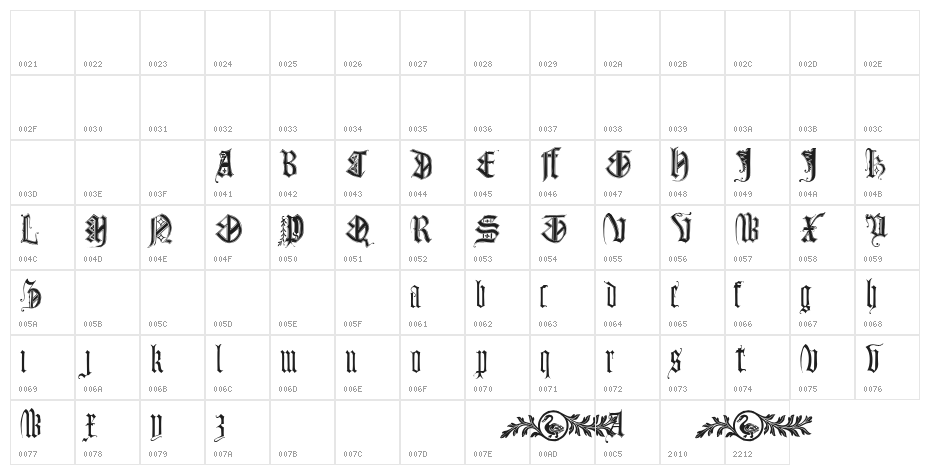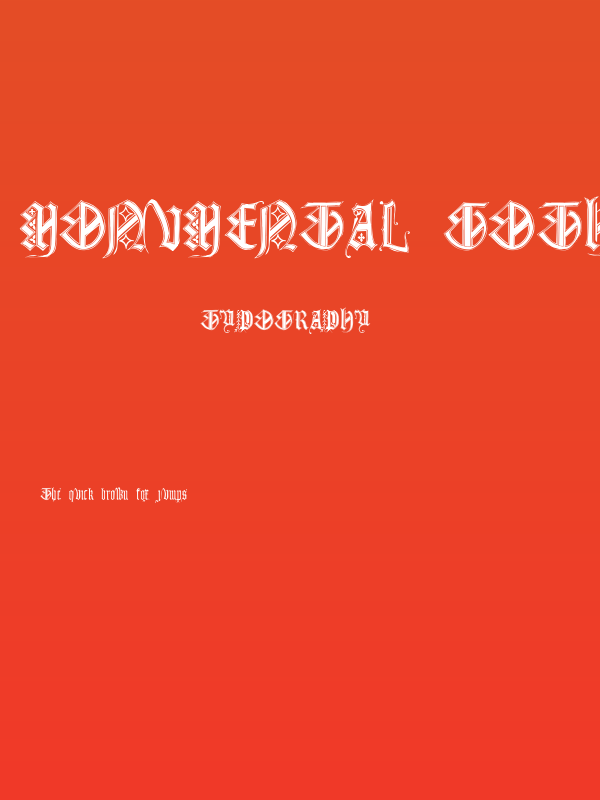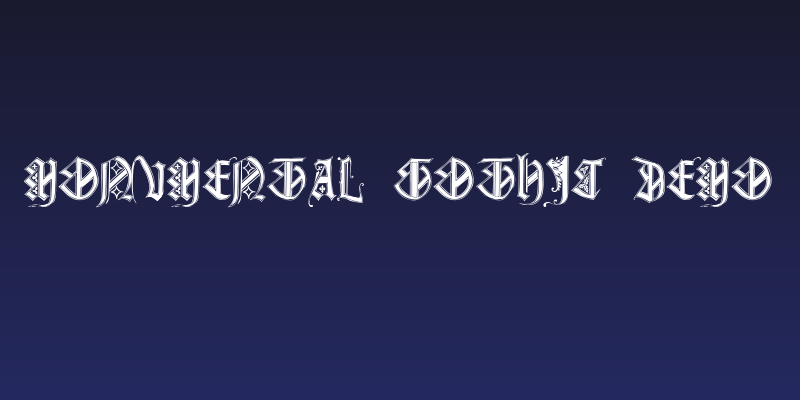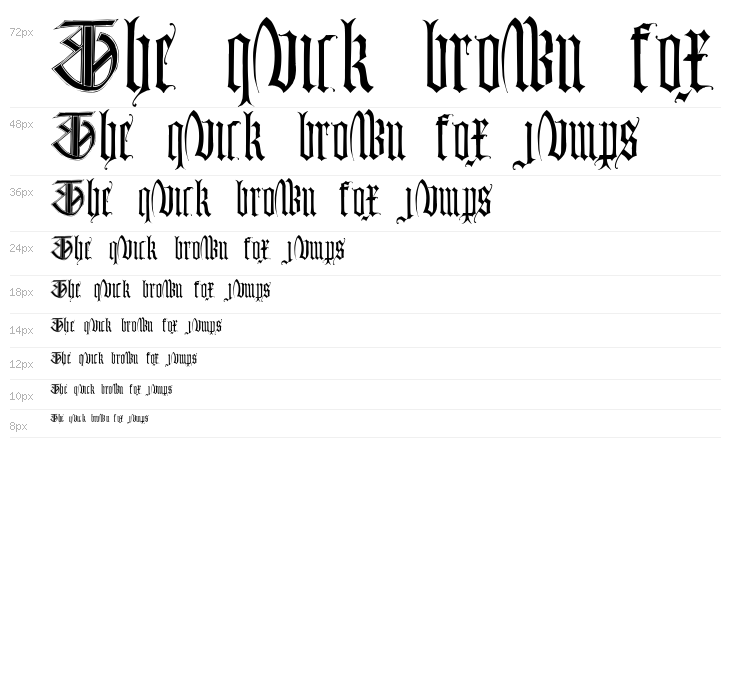
Monumental Gothic Demo Font
Monumental Gothic Demo Description
This font is a striking example of Gothic design, characterized by its intricate and ornate letterforms. The uppercase letters feature elaborate flourishes and sharp angles, creating a dramatic and historical feel. The lowercase letters maintain a consistent style, with elongated strokes and decorative elements that enhance the overall aesthetic. The numbers and special characters are equally detailed, ensuring a cohesive look across all characters. This font is reminiscent of medieval manuscripts and traditional calligraphy, making it ideal for projects that require a touch of elegance and antiquity.
| Proposed Projects | Ideal for use in historical themed projects, book covers, posters, and branding that requires a medieval or elegant touch. |